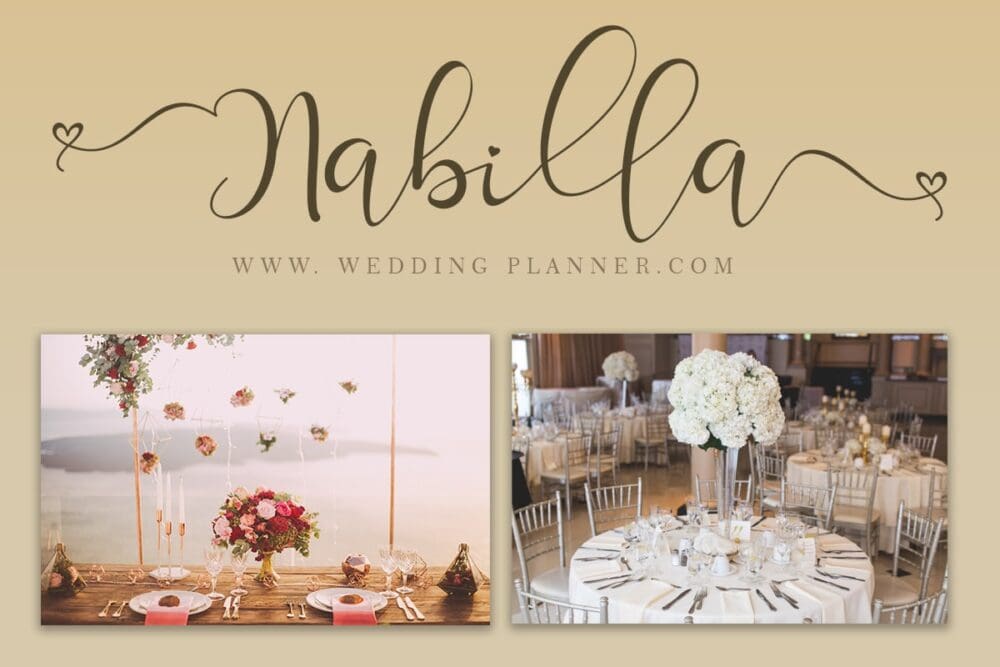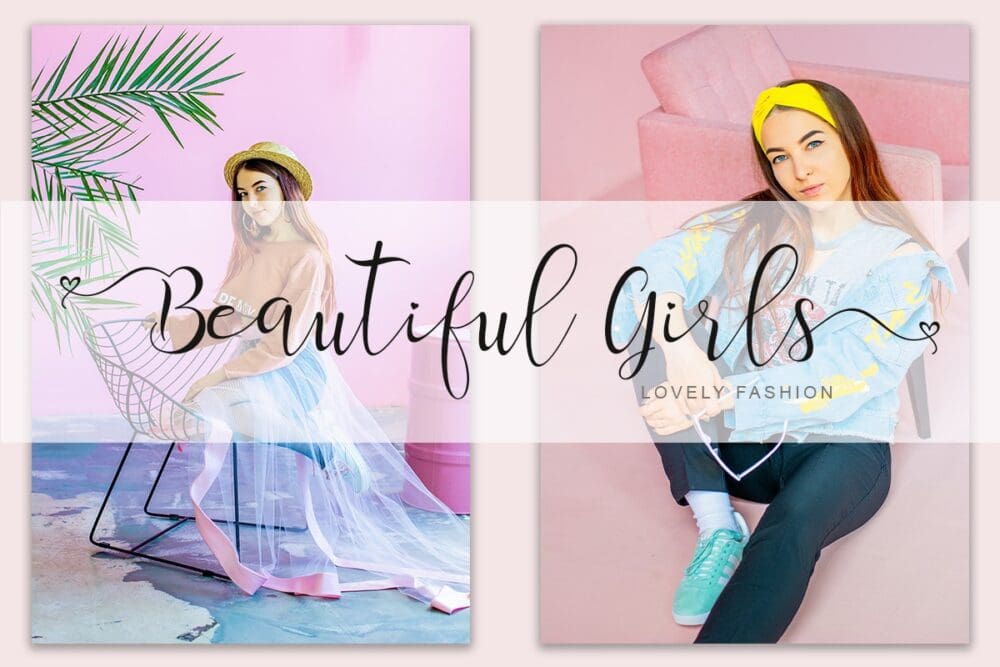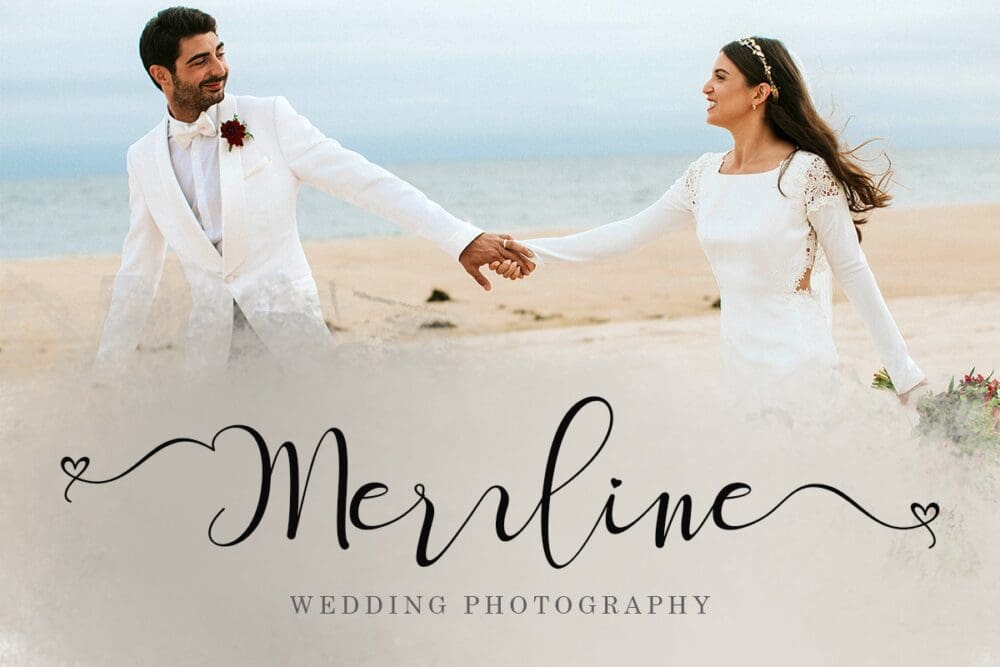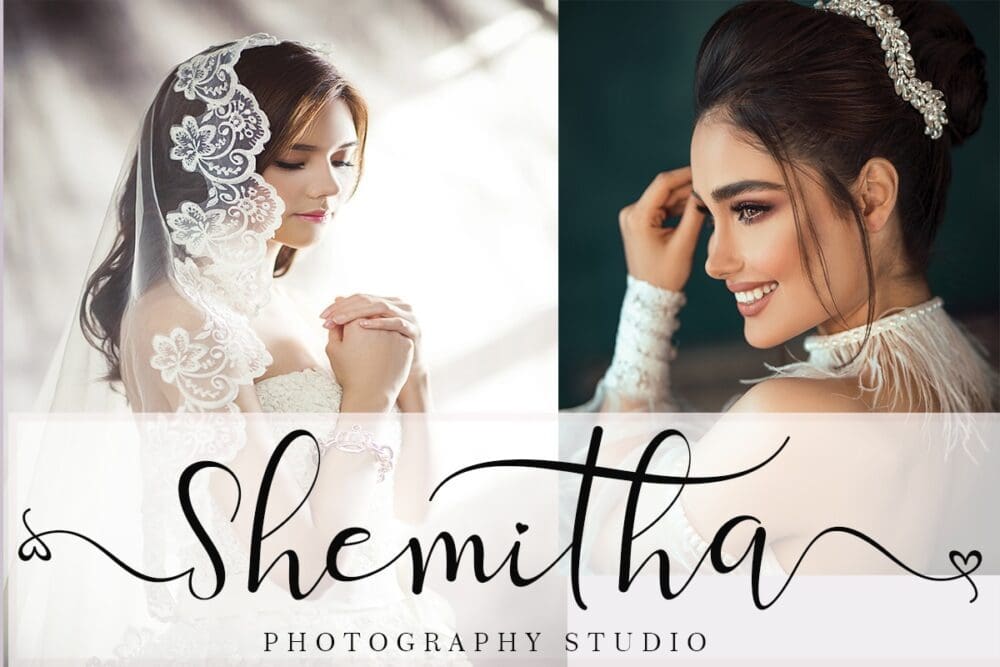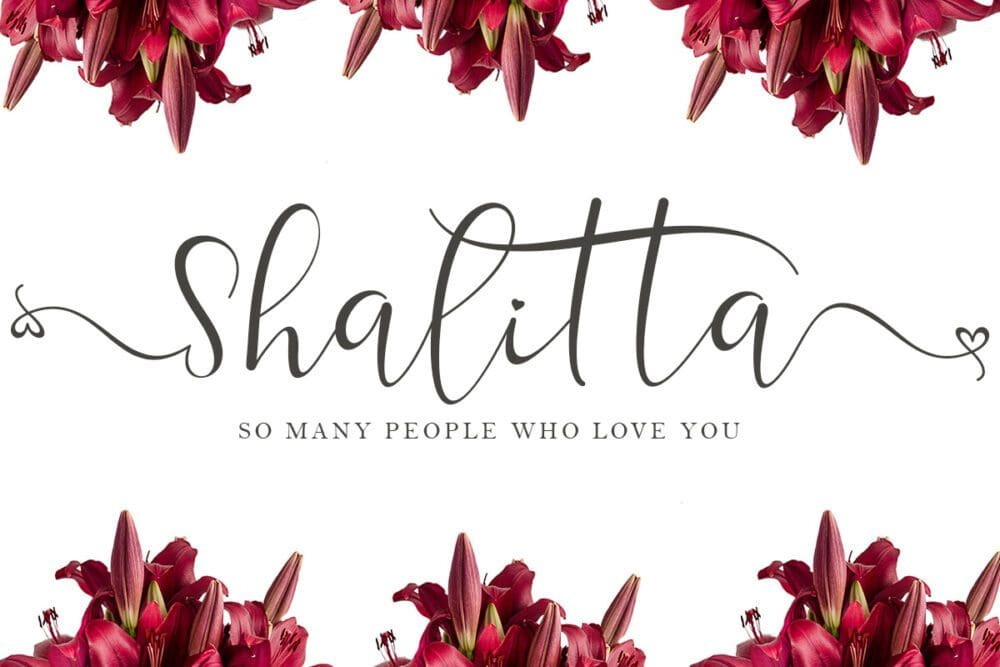
Shalitta Font
Shalitta font feels equally charming and elegant. It looks stunning on wedding invitations, thank you cards, quotes, greeting cards, logos, business cards and every other design which needs a handwritten touch.